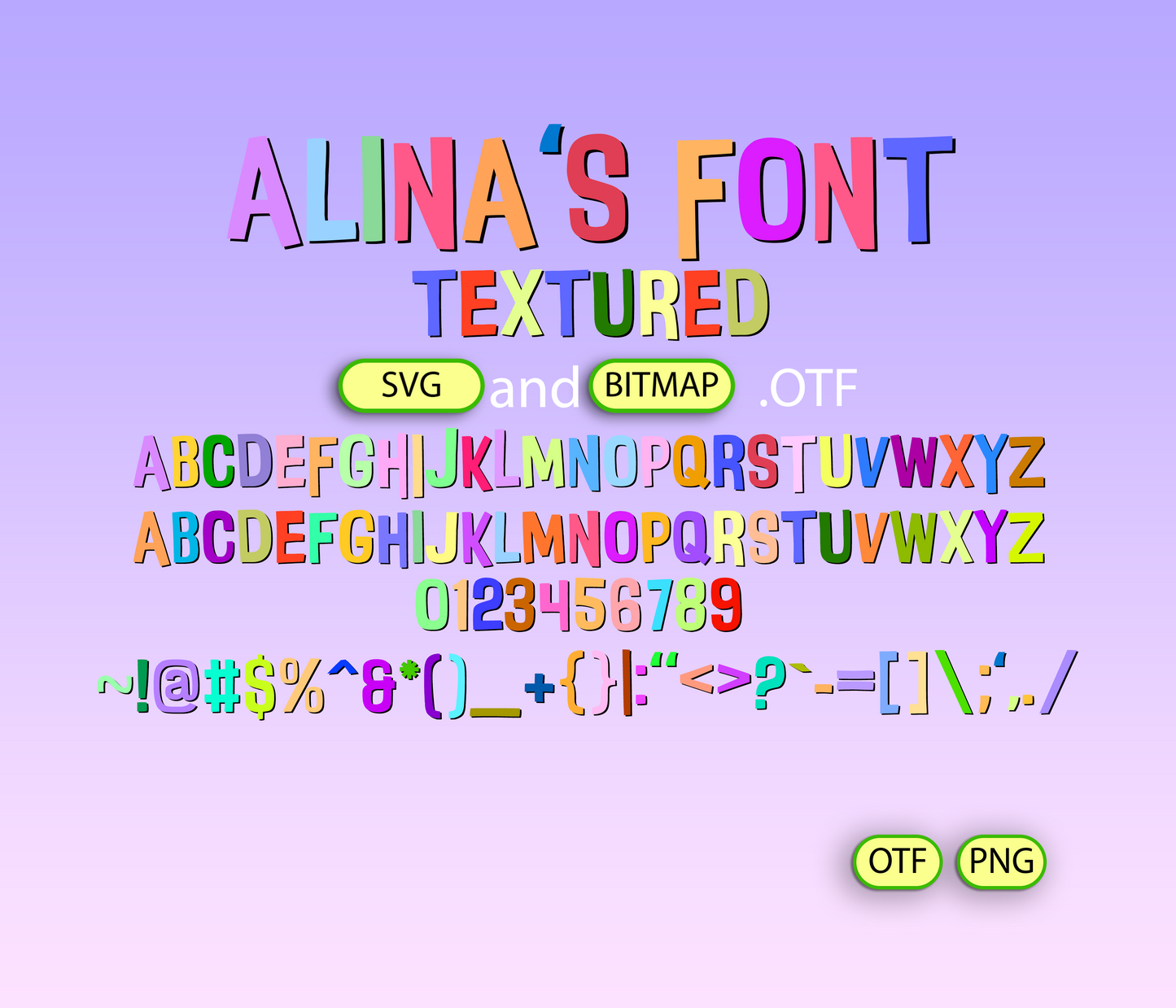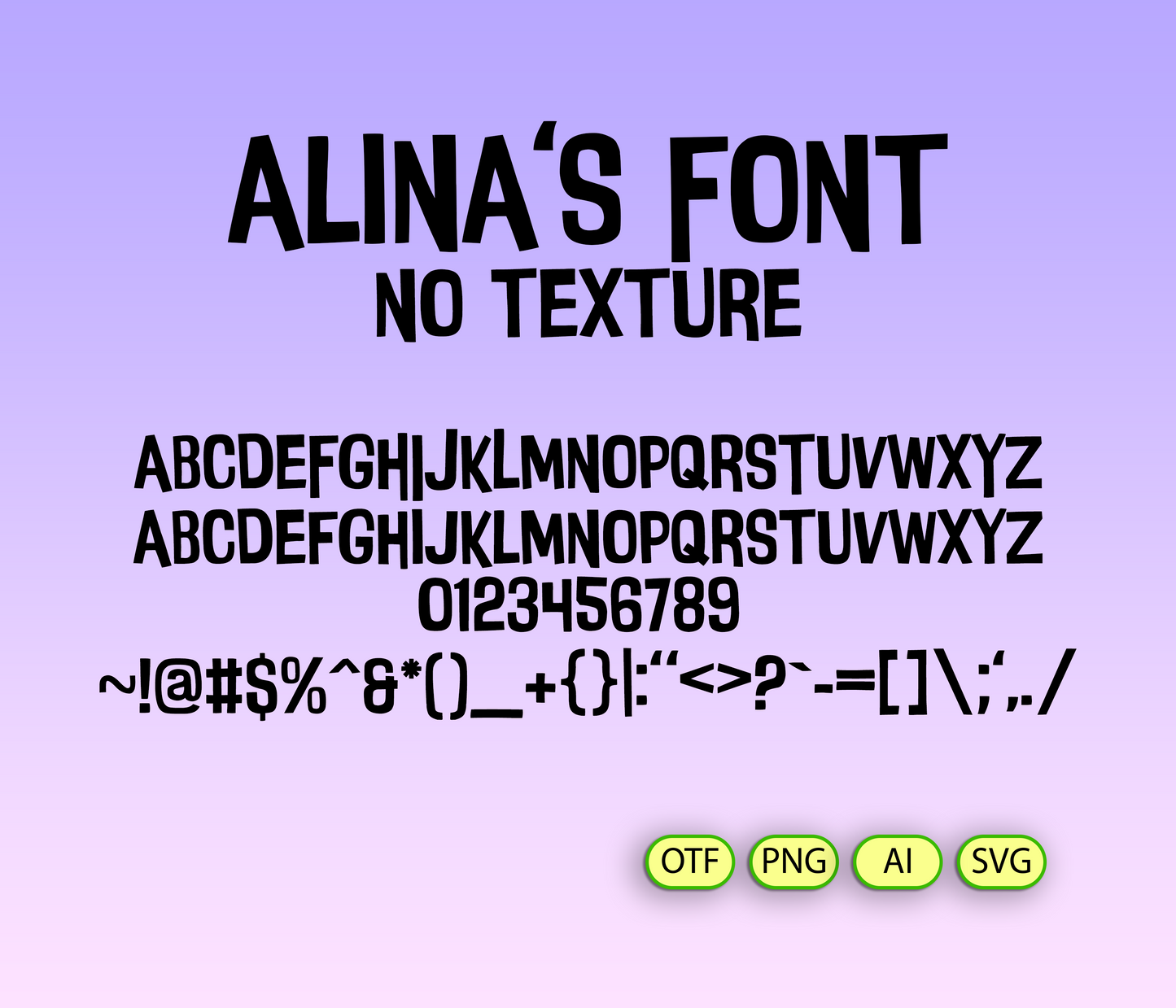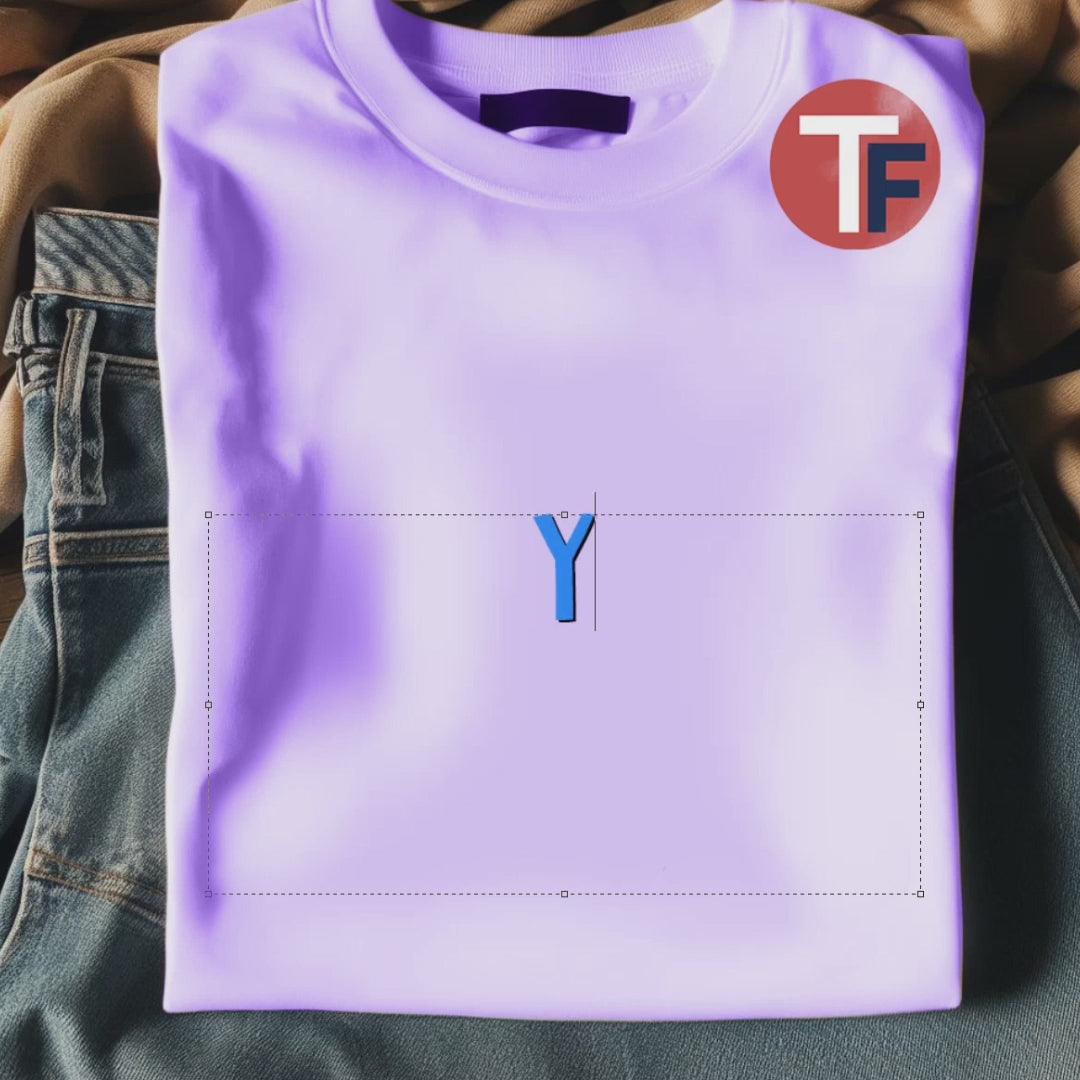
Emotional Adventure Font Textured
Introducing the Emotional Textured Adventure Font, your creative companion through the whimsical world of the Feelings Journey. Inspired by the colorful emotions and playful adventures of this beloved animation, this typeface adds magic to t-shirts, cake toppers, birthday invitations, and more. Compatible with cutting machines, it easily brings imaginative projects to life. Perfect for parties, decor, and digital content, this font ensures your designs resonate with joy, sadness, and every emotion in between. Unleash extraordinary emotional magic in your designs and let each letter tell a tale as vibrant as the Feelings Journey.
Feelings Journey Font Features
This typeface, mirroring the playful typography of Feelings Journey, includes a wide character set with alphabet, numbers, and symbols. It’s visually stunning and meaningful, reflecting the film's portrayal of emotions.
- Textured and Non-Textured: Choose between playful textured or smooth versions.
- Comprehensive Character Set: Endless creative possibilities.
Our Feelings Journey-inspired font celebrates emotions, creativity, and the wonders of the human mind.